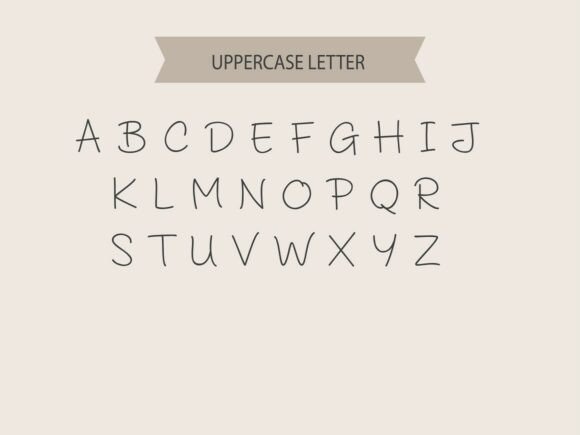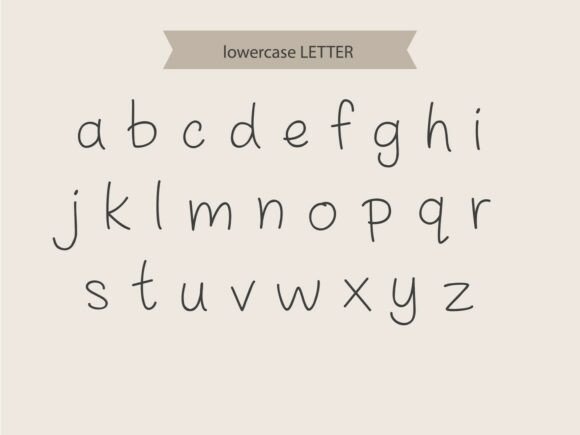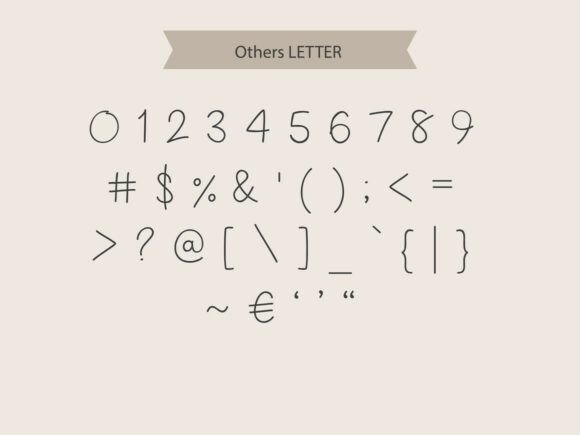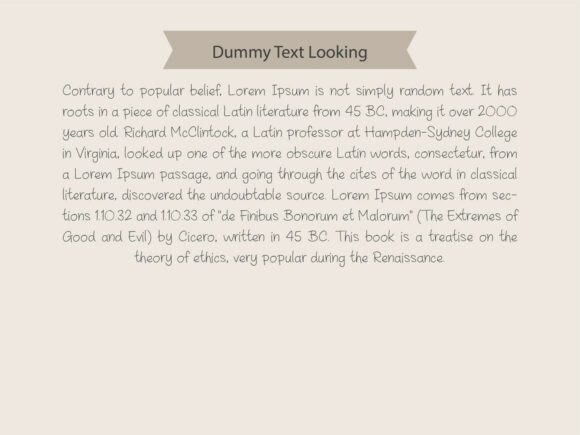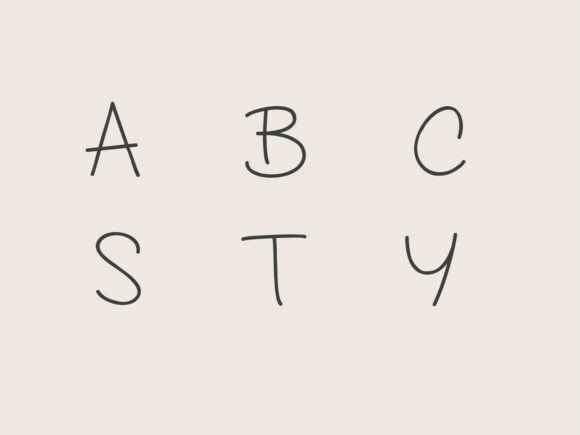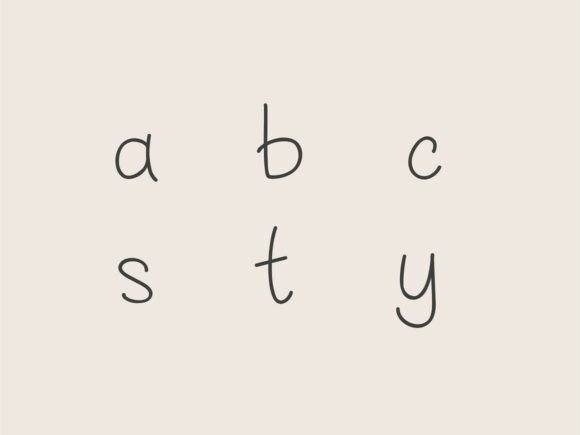
Introduction to Pingku Font
Have you ever been working on a creative project, and the perfect font just slips your mind? You envision a design with a warm, handwritten feel, but nothing seems to capture the essence of your vision. That’s where Pingku Font comes in – a delightful handwritten script that brings a sense of personality to your designs.
With its slim lines and playful curves, Pingku Font is designed to feel approachable, friendly, and effortlessly creative. Whether you’re working on a project that requires a youthful, crafty, or intimate touch, this high-quality font is the perfect design resource to bring your ideas to life. Plus, with its transparent background and free download options, you can experiment with Pingku Font without worrying about any additional costs or complications.
For designers, having access to versatile and engaging fonts like Pingku Font is invaluable. It allows you to express your creativity and convey your message in a unique and captivating way. So, why settle for a generic font when you can add a personal touch to your designs with Pingku Font?
- Unique characteristics: elegant, modern, and versatile font suitable for a wide range of design applications
Honest Review: Pingku Font
I recently had the chance to work with the Pingku Font, a beautiful and unique design resource that caught my eye. I was excited to see how it would perform in my creative project, and I’m happy to share my honest review with you.
- ✨ High-quality design: The Pingku Font is stunningly beautiful, with intricate details and a unique style that sets it apart from other fonts.
- ✨ Transparent background: The font’s transparent background allows for easy customization and versatility in design projects.
- ⚠️ Limited character set: The Pingku Font is a script font, which means it may not be suitable for projects that require a full character set.
- ⚠️ May require adjustments: Depending on the project, you may need to make some adjustments to the font’s size, spacing, or color to achieve the desired look.
Overall, I was impressed with the Pingku Font and would definitely recommend it as a design resource for creative projects. While it may have some limitations, its unique style and high-quality design make it a valuable addition to any designer’s toolkit.
Tips for Getting the Most Out of Pingku Font
To get the most out of Pingku Font, use it for high-quality design projects that require a unique and creative touch. The transparent background feature makes it ideal for creating stunning designs that stand out from the crowd. You can also use it as a free download to add to your design resource library.
Pingku Font is commonly used in creative projects that require a touch of elegance and sophistication. Some common use cases include:
- Infographics and data visualizations
- Editorial and magazine designs
Alternatives to Pingku Font
Great Vibes Font is a modern, elegant script font perfect for creative projects that require a touch of sophistication. It features a transparent background, making it ideal for designs with complex backgrounds. Great Vibes Font is available for free download and is a great resource for designers looking for high-quality fonts. When to use: wedding invitations, branding materials, and any project that requires a high-end feel. Compared to Pingku Font, Great Vibes Font has a more refined and polished look, making it suitable for more formal projects.
Pacifico Font is a beautiful, cursive script font that’s perfect for designs that need a touch of warmth and elegance. It’s available for free download and features a transparent background, making it easy to use with complex backgrounds. Pacifico Font is a great resource for designers looking for high-quality fonts for their creative projects. When to use: branding materials, social media graphics, and any project that requires a friendly and approachable feel. Compared to Pingku Font, Pacifico Font has a more relaxed and casual look, making it suitable for projects that require a friendly tone.